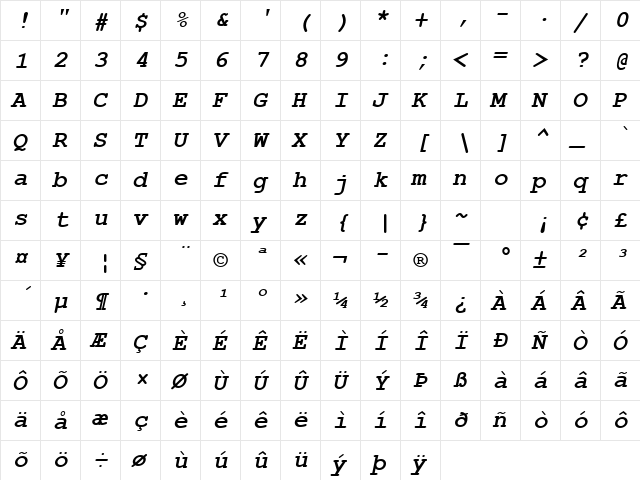
Courier New Bold Italic Font Preview
| Foundry | Monotype Typography |
| Designer | Howard Kettler |
Design Context for Courier New Typeface
Courier New brings the precise, column-aligned rhythm of monospaced typography to designs that value technical clarity and systematic order. The dynamic lean of this cut emphasises speed and emphasis in any layout. The heavy weight commands attention and anchors typographic hierarchies.
Pro Tip: Pair Courier New with a proportional sans for UI contexts where code-style labels and regular body copy need to coexist.